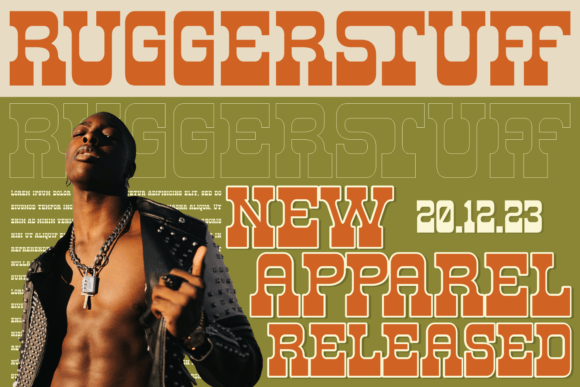
Houson Font: A Retro and Western-Looking Display Font to Elevate Your Designs
In the world of typography, fonts play a crucial role in conveying the tone and aesthetic of a design. With the numerous font options available, it can be challenging to find the perfect one that stands out from the rest. However, if you’re looking for a bold, unique, and vintage font that can add a touch of nostalgia to your designs, look no further than the Houson Font. In this article, we’ll delve into the features and benefits of the Houson Font and explore how it can elevate your designs to the next level.
What is Houson Font?
Houson Font is a retro and western-looking display font that exudes a sense of nostalgia and ruggedness. Its bold and unique design makes it perfect for creating eye-catching headlines, titles, and graphics. The font’s vintage aesthetic is reminiscent of the Wild West era, evoking feelings of freedom, adventure, and rebellion.
Key Features of Houson Font
- Retro and Western-Looking Design: Houson Font boasts a distinctive retro and western-looking design that sets it apart from other fonts.
- Bold and Unique: The font’s bold and unique design makes it perfect for creating eye-catching headlines and titles.
- Vintage Aesthetic: Houson Font’s vintage aesthetic is reminiscent of the Wild West era, adding a touch of nostalgia to your designs.
- PUA Encoded: The font is PUA encoded, making it easy to access all the glyphs and ligatures.
Uses of Houson Font
Houson Font is a versatile font that can be used for a wide range of design projects. Here are some of the ways you can use this font:
Design Projects that Houson Font is Perfect for
- Books and Magazine Covers: The font’s bold and vintage design makes it perfect for book and magazine covers.
- Social Media Posts: Houson Font can add a touch of nostalgia and ruggedness to your social media posts.
- Invitations: The font’s unique design makes it perfect for creating eye-catching invitations for events and parties.
- Graphic Designs: Houson Font can be used for a wide range of graphic design projects, including posters, flyers, and brochures.
Benefits of Using Houson Font
Using Houson Font can bring numerous benefits to your designs. Here are some of the advantages of using this font:
Why Choose Houson Font?
- Adds a Touch of Nostalgia: Houson Font’s vintage aesthetic can add a touch of nostalgia to your designs.
- Creates Eye-Catching Headlines: The font’s bold and unique design makes it perfect for creating eye-catching headlines and titles.
- Versatile: Houson Font can be used for a wide range of design projects, from books and magazine covers to social media posts and invitations.
- Easy to Use: The font is PUA encoded, making it easy to access all the glyphs and ligatures.
In conclusion, Houson Font is a retro and western-looking display font that can add a touch of nostalgia and ruggedness to your designs. Its bold and unique design makes it perfect for creating eye-catching headlines and titles. With its PUA encoding, the font is easy to use and customize. Whether you’re designing a book cover, magazine cover, social media post, or invitation, Houson Font is a versatile font that can elevate your designs to the next level.
Final Thoughts
If you’re looking for a font that stands out from the rest, Houson Font is an excellent choice. Its unique design and vintage aesthetic make it perfect for designers who want to add a touch of nostalgia to their designs. With its ease of use and versatility, Houson Font is a must-have font for any designer.